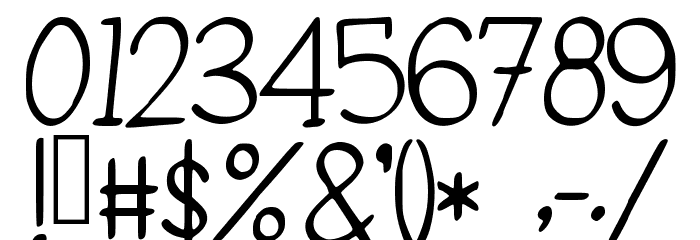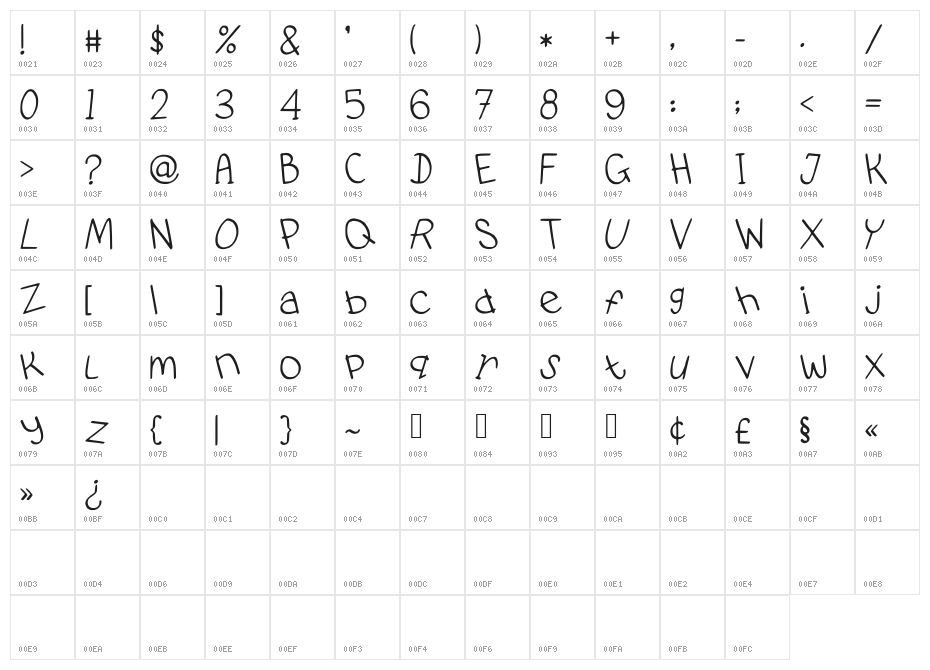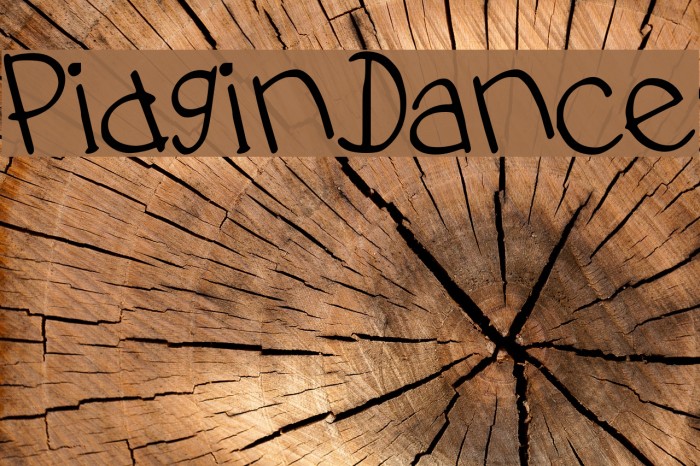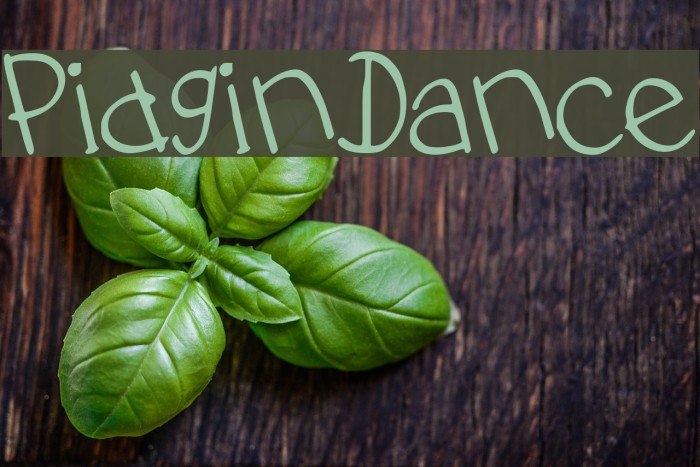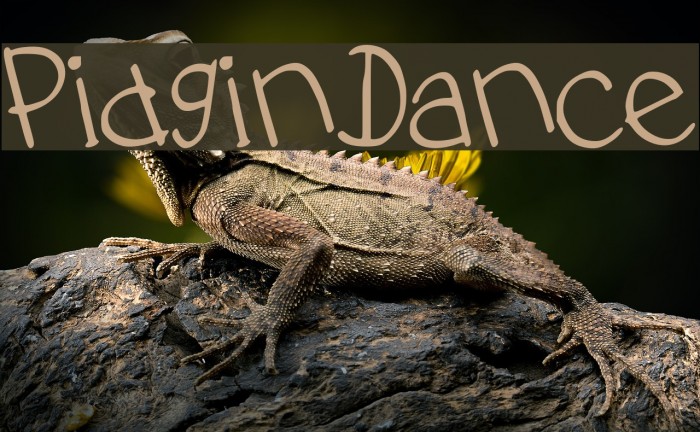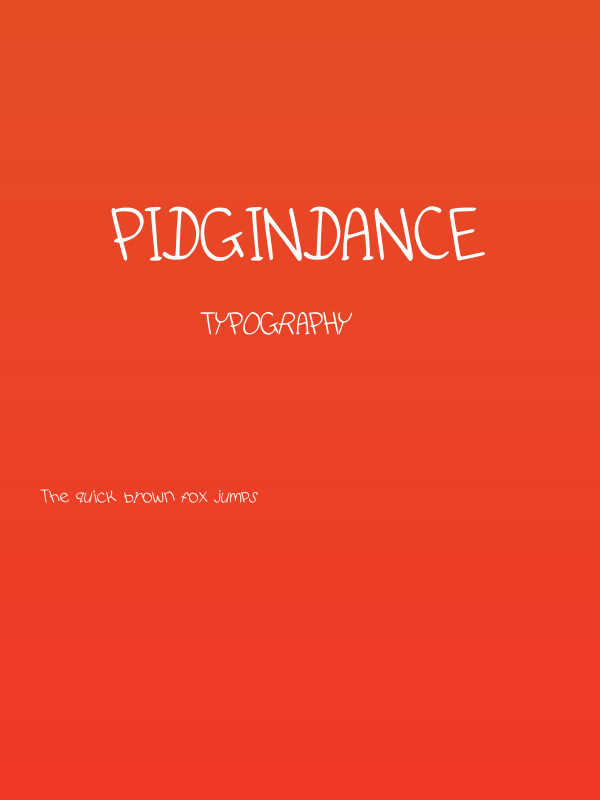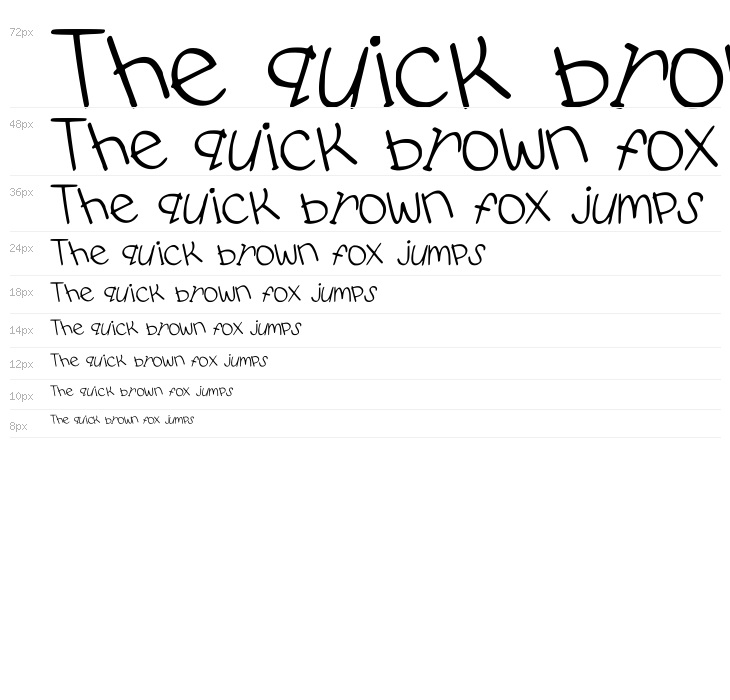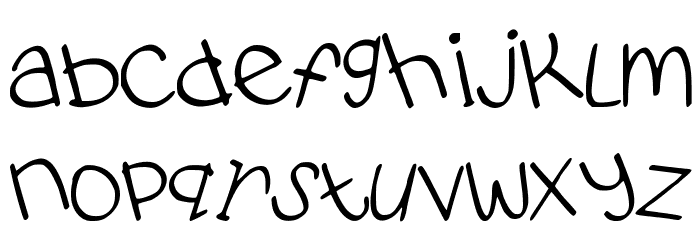
PidginDance Font
PidginDance Description
This font features a playful and whimsical style, characterized by its irregular and slightly tilted letterforms. The strokes are smooth and rounded, giving it a friendly and approachable appearance. The uppercase and lowercase letters maintain a consistent style, with a slight variation in size and shape that adds to its charm. The numerals are bold and clear, ensuring readability. Special characters are creatively designed, maintaining the overall playful theme. This font is perfect for projects that require a touch of fun and creativity, such as children's books, playful branding, or casual invitations.
| Use Case | Headlines, Logos, Casual Text |
| Proposed Projects | Ideal for children's books, playful branding, casual invitations, and creative projects. |